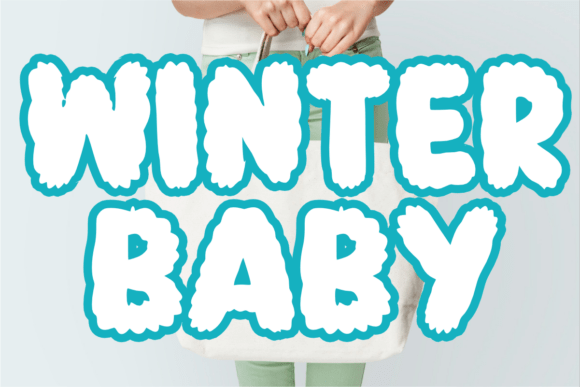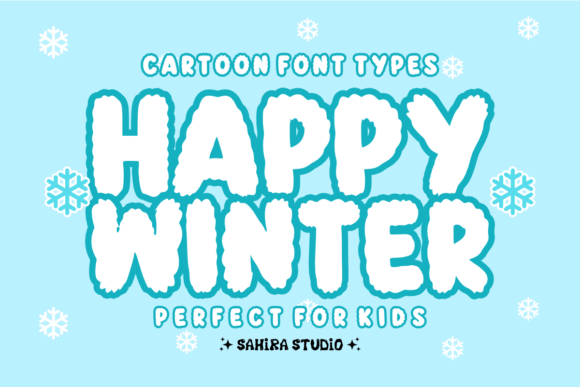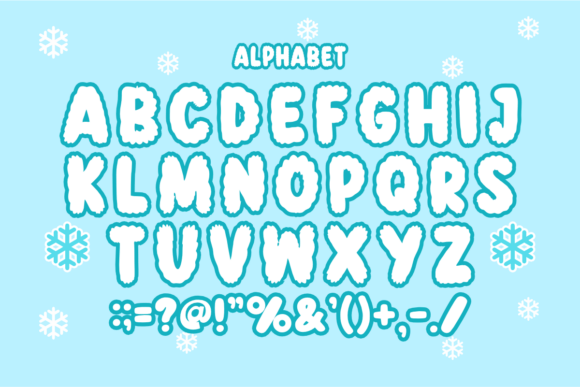
❄️ Cool Winter Font: The Perfect Addition to Your Winter-Themed Designs
As the winter season approaches, designers and crafters are on the lookout for fonts that can add a touch of magic to their projects. If you’re looking for a font that embodies the fluffy, icy texture of snow and frost, look no further than the Cool Winter Display Font. This wonderfully chunky and playful font is sure to capture the hearts of your audience, especially the young ones.
The Unique Charm of Cool Winter Font
The Cool Winter Font boasts soft, rounded contours and subtle, irregular edges that give it a charming, snow-covered appearance. This unique charm makes it instantly recognizable and appealing to a young audience. The font’s chunky and playful design is perfect for creating a cozy, cute, and delightfully puffy aesthetic reminiscent of a snow day.
Perfect for Winter-Themed Projects
The Cool Winter Font is versatile and can be used for a variety of winter-themed projects, including:
- Children’s winter clothing branding: Add a touch of fun and playfulness to your brand with this adorable font.
- Holiday-themed packaging: Make your products stand out with a font that screams winter cheer.
- Fun classroom posters: Create engaging and interactive posters that will capture the attention of your students.
- Winter event promotions: Promote your winter events with a font that’s sure to get people excited.
- Digital sticker designs: Add a touch of winter magic to your digital stickers with this charming font.
Excellent for Layering and Outlining
One of the best features of the Cool Winter Font is its suitability for layering and outlining. As seen in the preview, the font’s subtle, irregular edges create a beautiful, snow-covered effect that’s perfect for adding depth and dimension to your designs.
Why Choose Cool Winter Font?
So, why choose the Cool Winter Font for your winter-themed projects? Here are just a few reasons:
- Unique and Playful Design: The Cool Winter Font has a unique and playful design that’s sure to capture the attention of your audience.
- Versatile: The font is versatile and can be used for a variety of projects, from branding to packaging to digital stickers.
- Easy to Read: Despite its chunky design, the Cool Winter Font is easy to read, making it perfect for headlines and titles.
- Winter-Themed: The font is specifically designed for winter-themed projects, making it a great addition to your design arsenal.
Tips for Using Cool Winter Font
Here are a few tips for using the Cool Winter Font in your designs:
- Pair with Other Winter-Themed Fonts: Pair the Cool Winter Font with other winter-themed fonts to create a cohesive look.
- Use for Headlines and Titles: Use the font for headlines and titles to add a touch of winter magic to your designs.
- Experiment with Colors: Experiment with different colors to find the perfect combination that matches your winter theme.
- Add Winter-Themed Graphics: Add winter-themed graphics, such as snowflakes or snowmen, to enhance your design.
The Cool Winter Font is a wonderfully chunky and playful display font that’s perfect for adding a touch of winter magic to your designs. Its unique charm, versatility, and ease of use make it a great addition to your design arsenal. Whether you’re a designer or crafter, this font is sure to inspire your creativity and help you create stunning winter-themed projects.